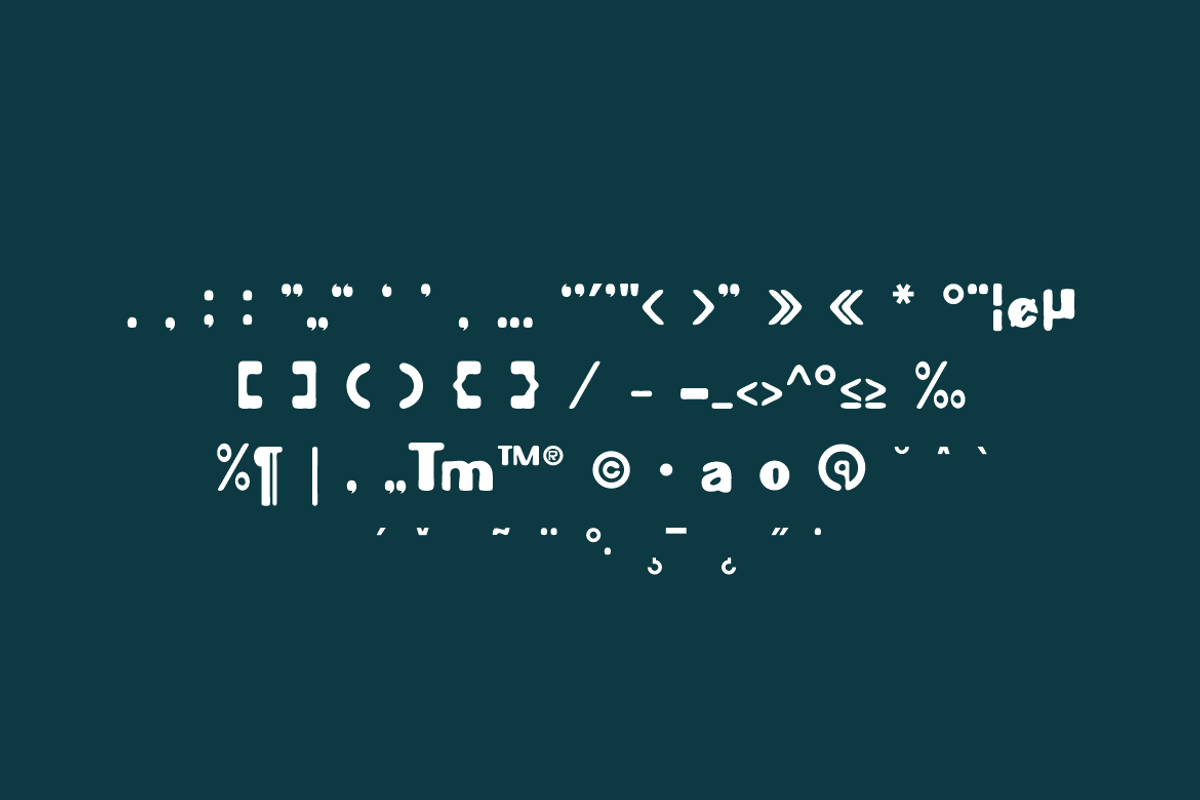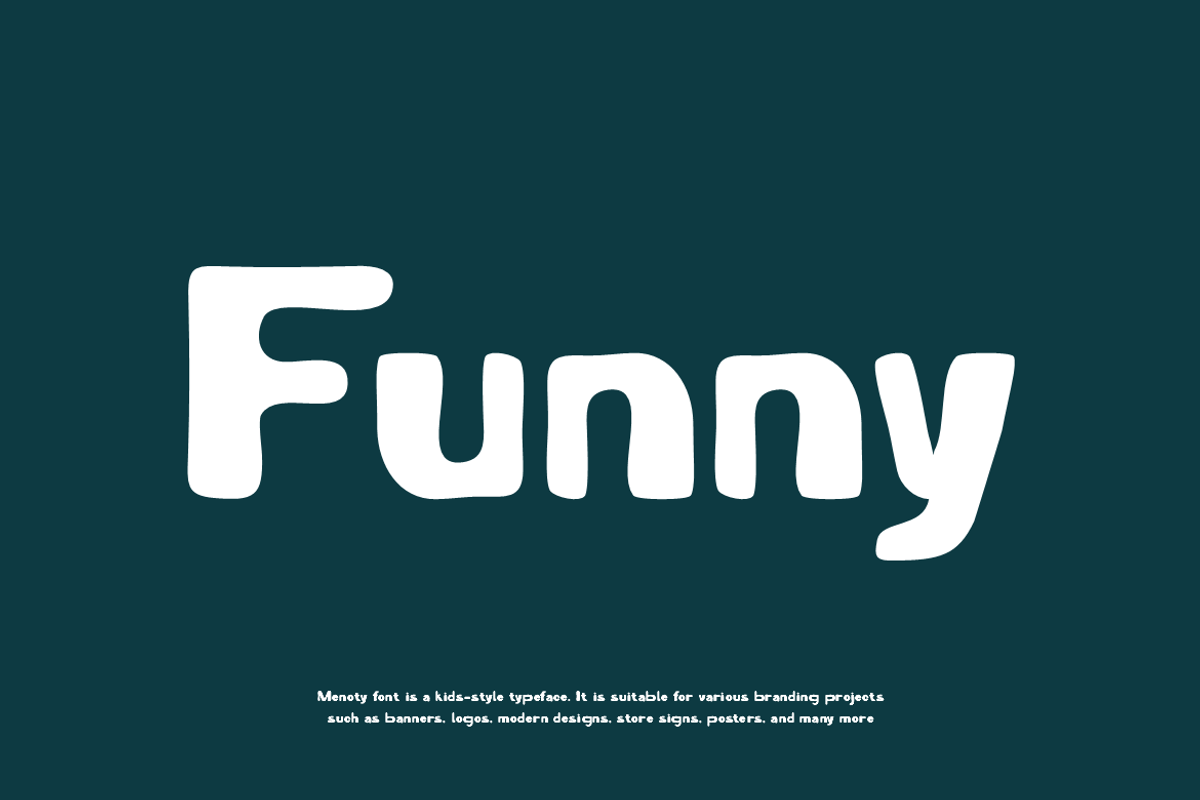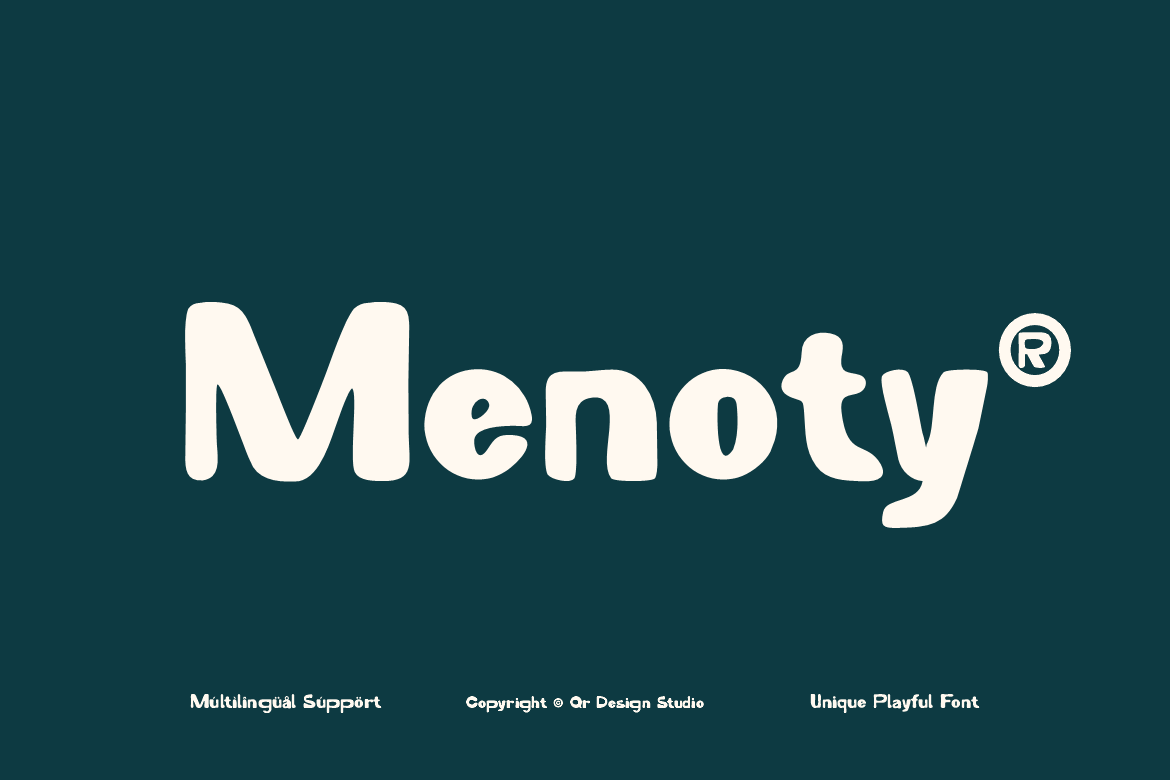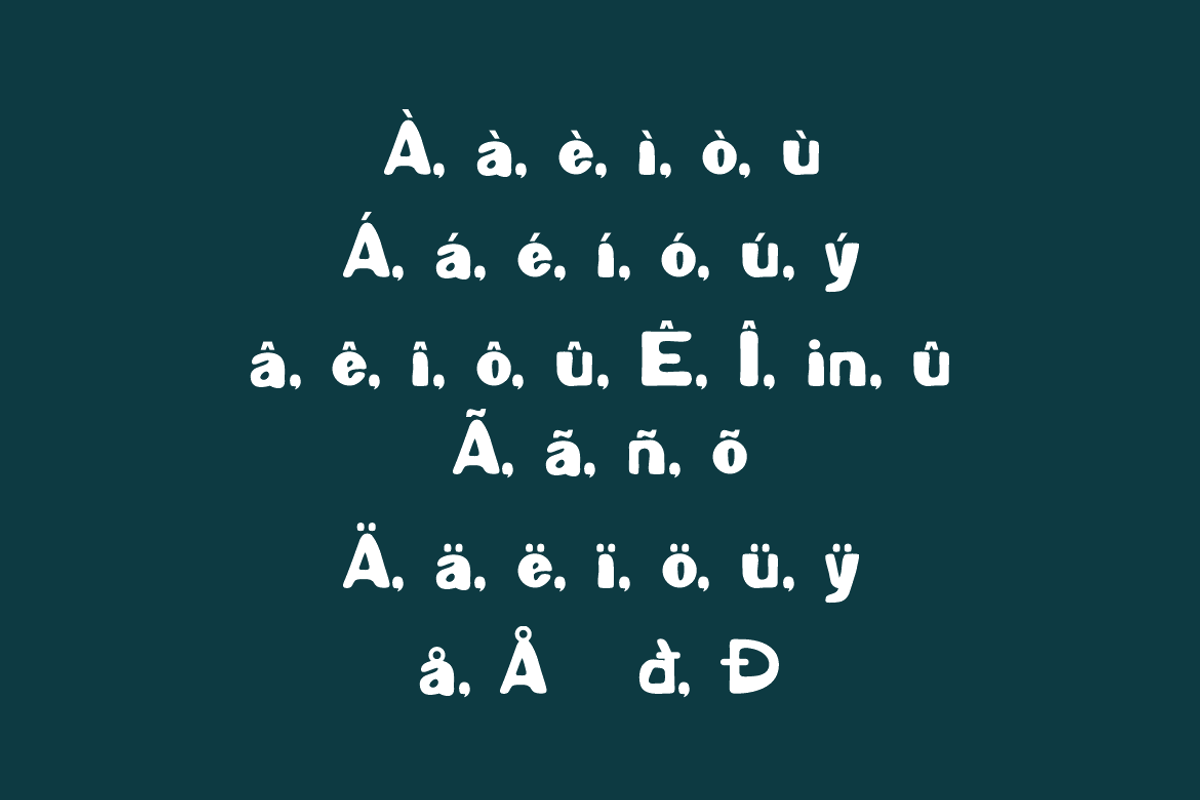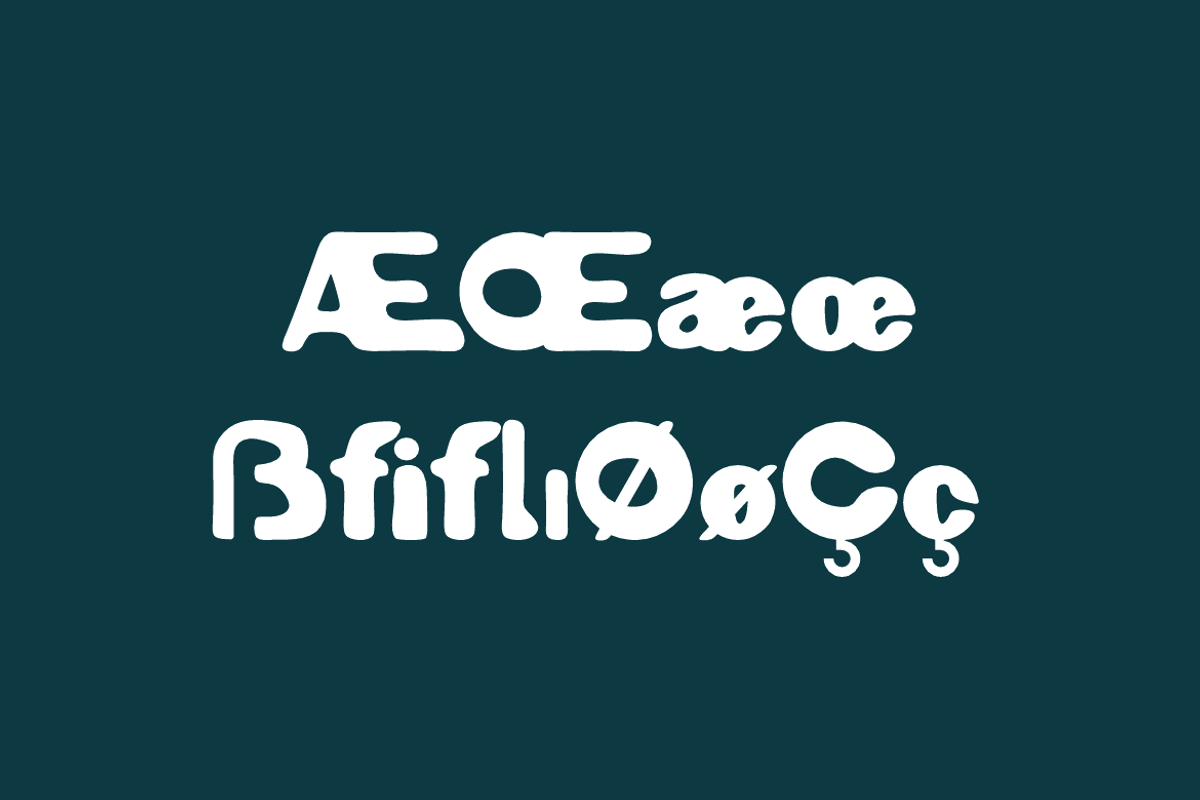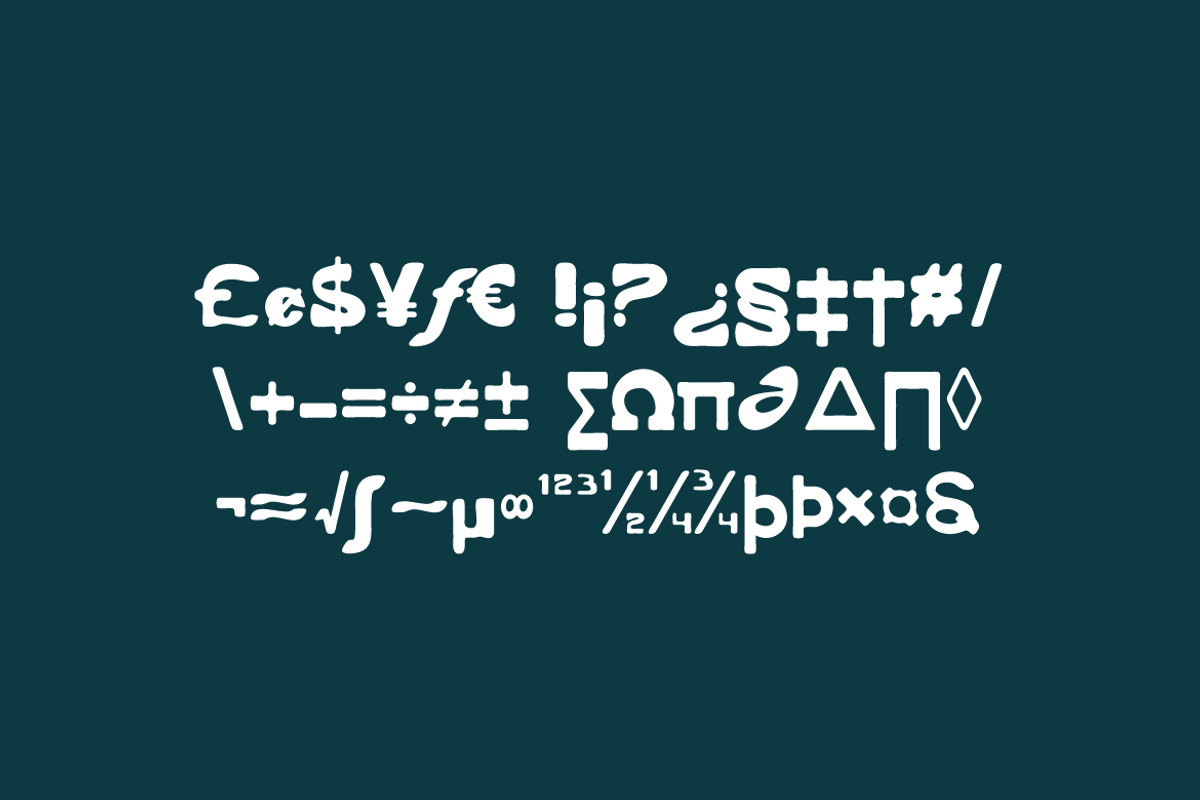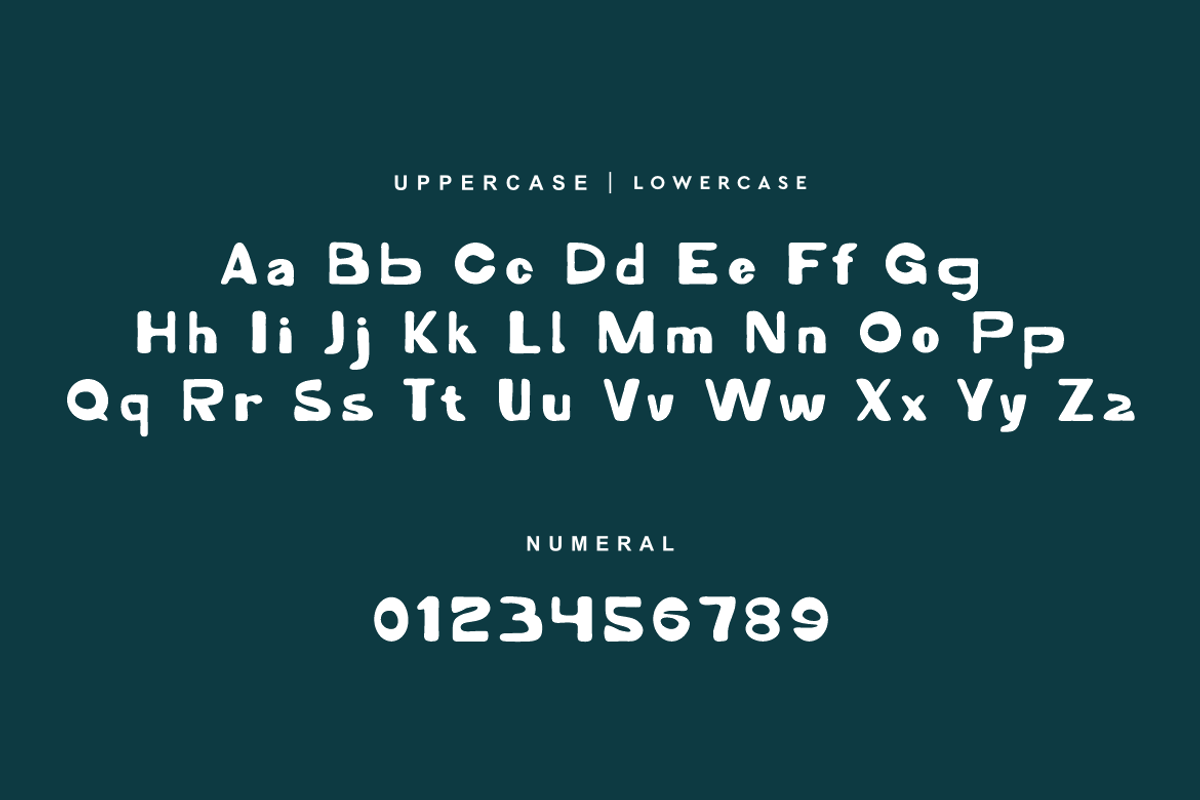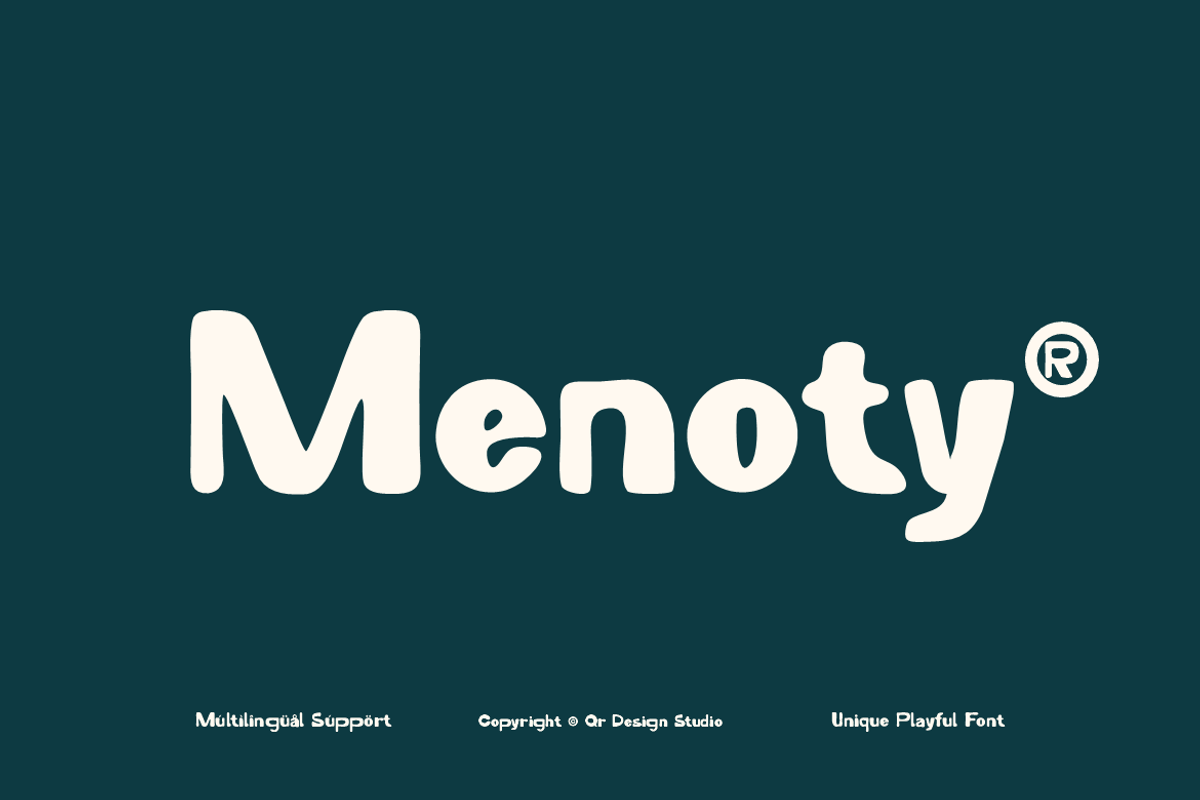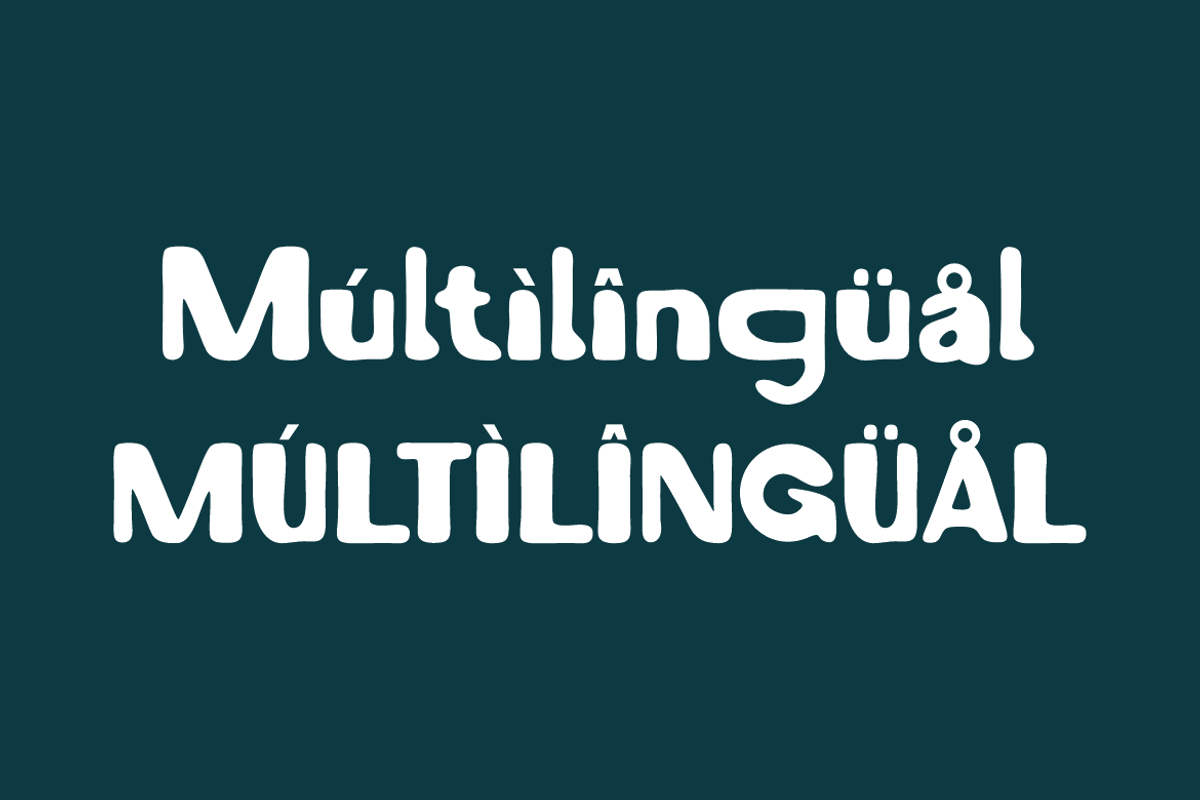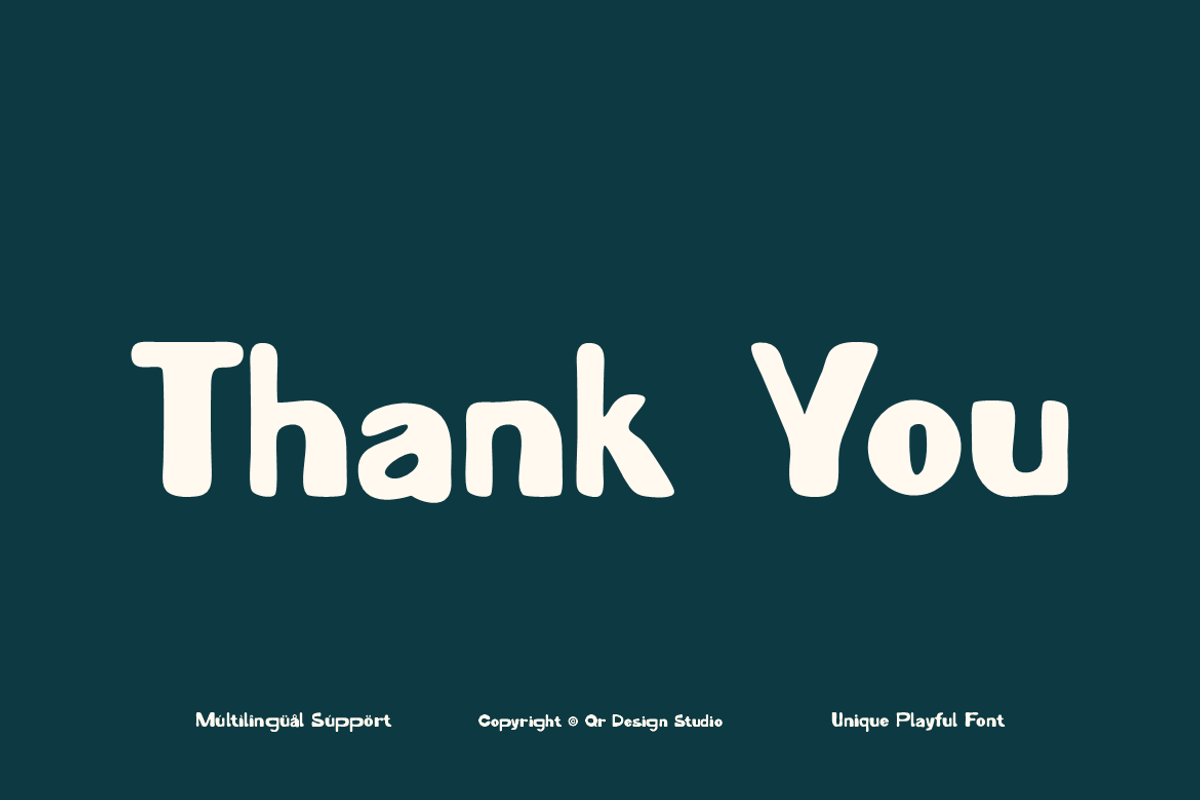
Menoty - Unique Playful Font
Menoty Font is a bold and authentic display typeface.
It’s perfect for various branding projects such as logos, playful designs,
and more. This font stands out beautifully in a wide range of contexts.